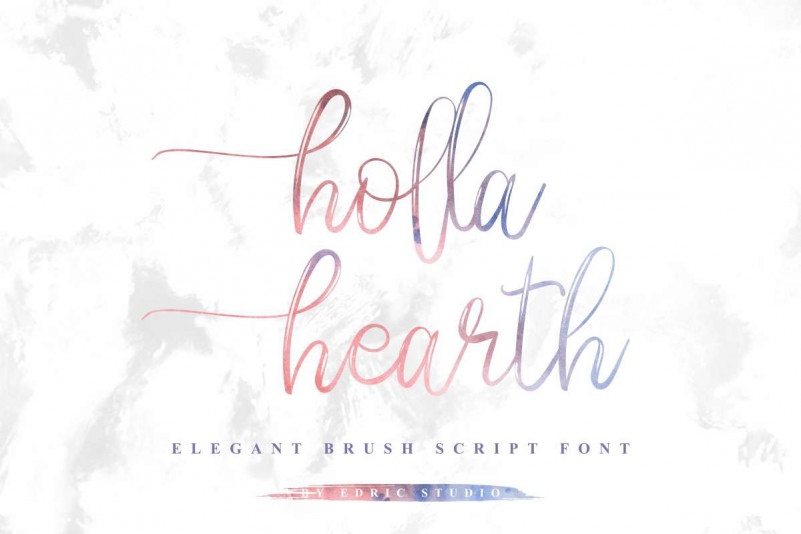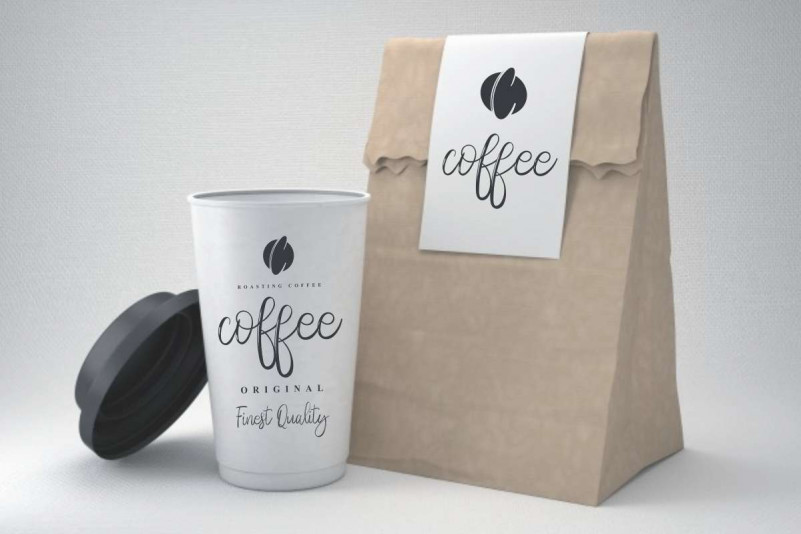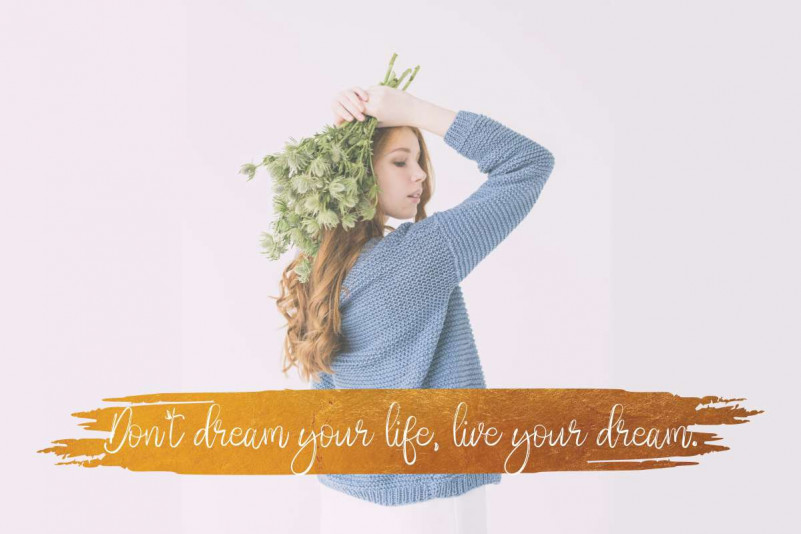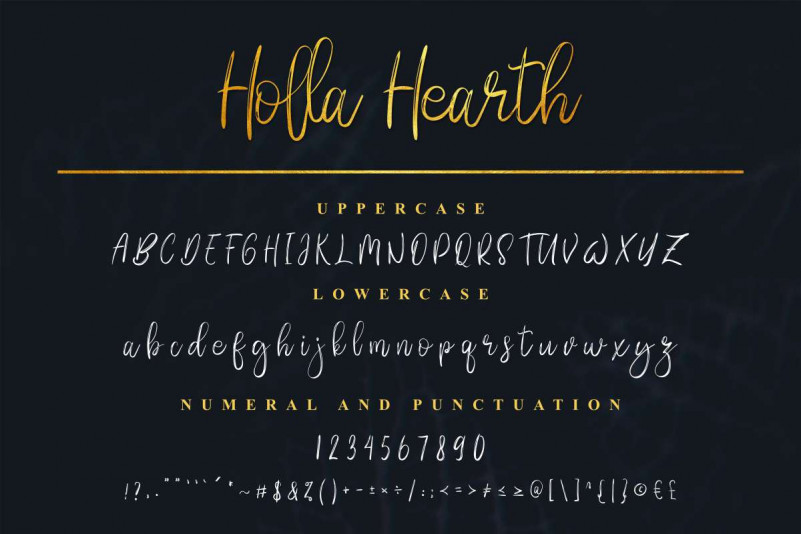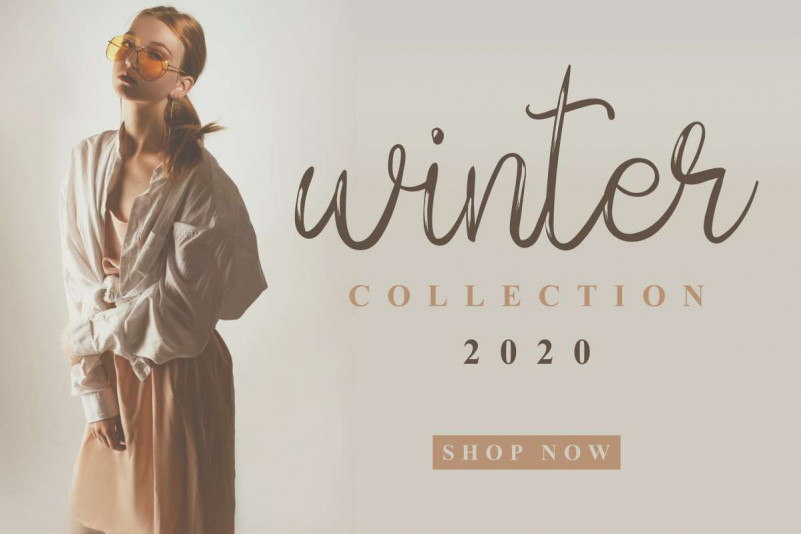
Holla hearth Brush Font
Please meet our new baby : Holla hearth Font was made in 2019 from the Paris Van Java – Bandung : Indonesia. Made by our happiest artist, right here at the office. Please kindly check the images preview or see the demo down below! Dont take my word, but it is a stunning font! Made with textured brush look glyphs. Dont ask what this font will be awesome on. Because all cases of any of your designs projects will be stunning with this font. With extended licenses, you will be able to use this font for : branding, logo, stationery, card, signage, flyer, brochure etc.